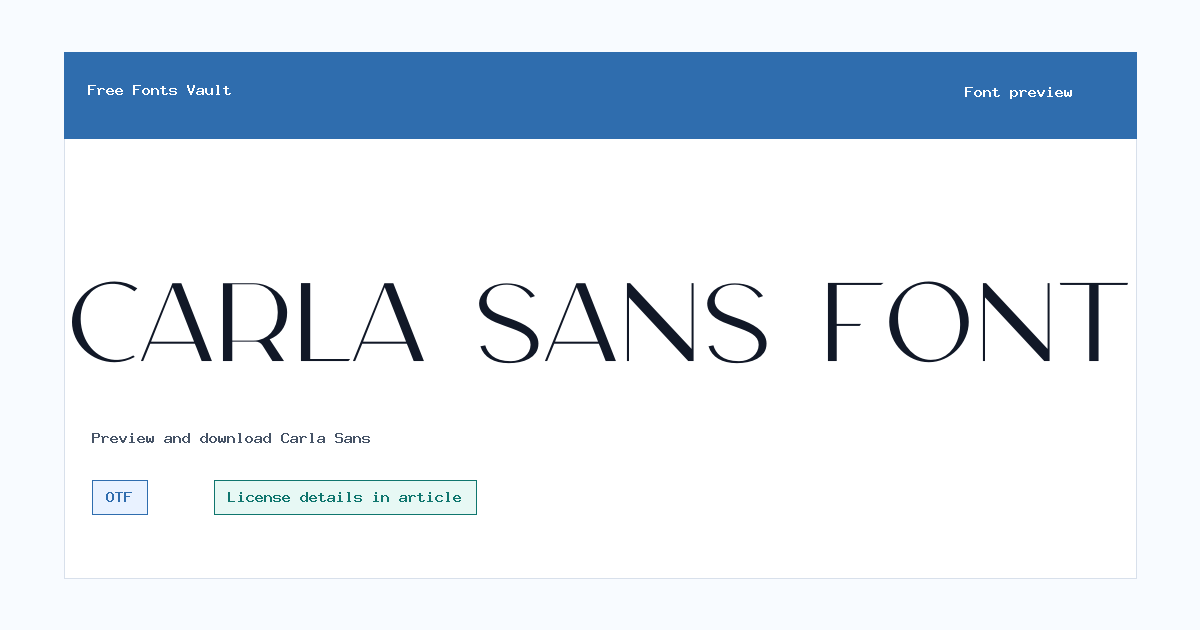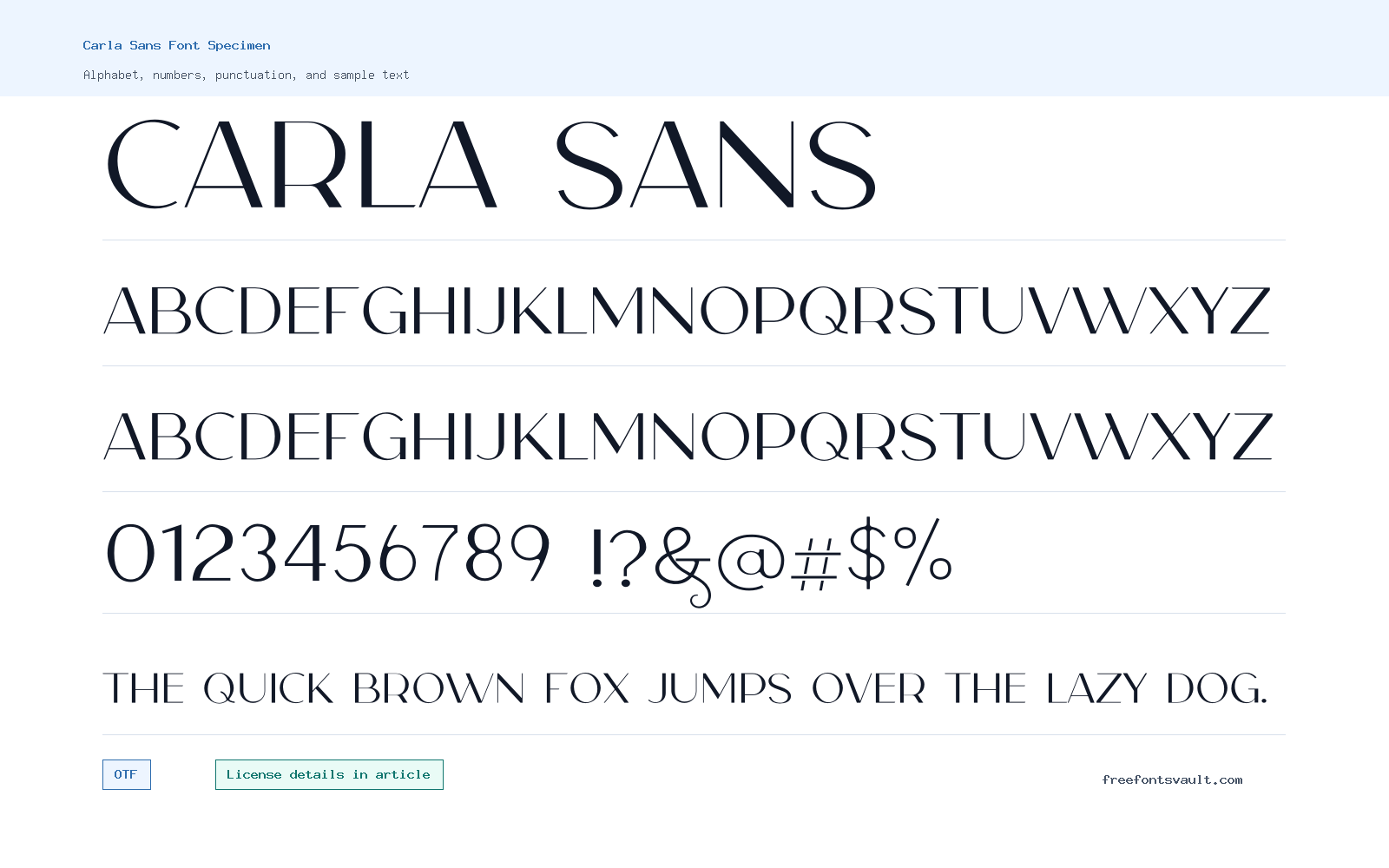
Carla Sans
Carla Sans is a light-weight sans serif font available as an OTF file. It is best approached as a clean, understated typeface for short text, headings, labels, and simple layout experiments.
Carla Sans has a light 300 weight in a normal upright style, which gives it a slim and quiet appearance compared with heavier sans serif fonts. Because only one light style is listed, it works best where you want a softer typographic tone rather than strong visual weight. Try it in the preview with titles, menu labels, captions, and short lines before deciding how much space it needs.
A light sans serif can look elegant in large sizes, but it may lose strength in small text or low-contrast settings. Test Carla Sans on both desktop and mobile previews, especially if you plan to use it over images, colored backgrounds, or narrow containers. For longer reading, pair it with a sturdier body font so Carla Sans can handle display text while the companion font carries paragraphs more comfortably.
When using Carla Sans in a real layout, check contrast before checking style. A light sans can look polished on a large white canvas, but it may become too faint in a crowded sidebar, a small button, or text placed over photography. Try one short heading, one navigation label, and one sentence in the preview so you can see where the light weight stays clear.
• Light 300 weight with a normal upright style
• Light sans serif texture that benefits from open spacing and strong contrast
• Minimal headings, page titles, and section labels
• Logos, simple posters, social graphics, and clean interface mockups
• Quiet brand mockups, clean page headers, and minimalist title treatments
Use the preview tool to test your exact words in uppercase, lowercase, and mixed case. Because this listing includes a light weight only, avoid relying on it for dense paragraphs, tiny captions, or text that needs strong contrast. If a layout needs emphasis, pair Carla Sans with a heavier sans serif or a readable serif instead of trying to force the light style into every role. Keep Carla Sans for quiet hierarchy and use a stronger companion font for dense information, forms, or small utility text.
What type of font is Carla Sans?
Carla Sans is listed as a sans serif font with a light 300 weight and a normal upright style.
Is Carla Sans good for body text?
It may work for short text, but the light weight can become hard to read in long paragraphs or small sizes. Test it carefully before using it as a main reading font.
What should I pair with Carla Sans?
Pair it with a stronger body font when you need better readability. A regular-weight sans serif can keep the design clean, while a simple serif can add contrast.